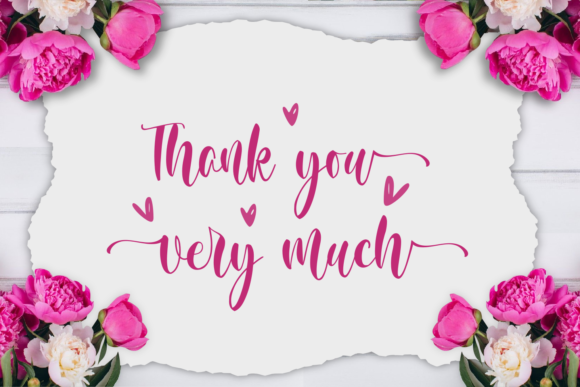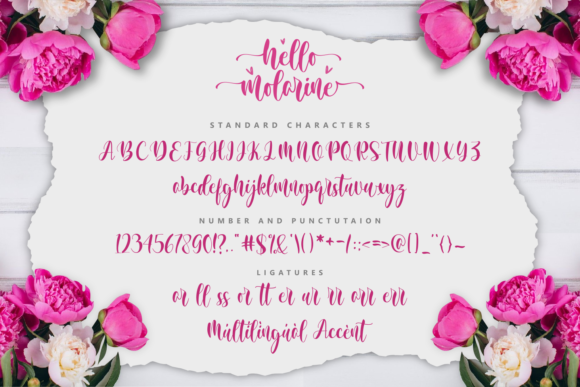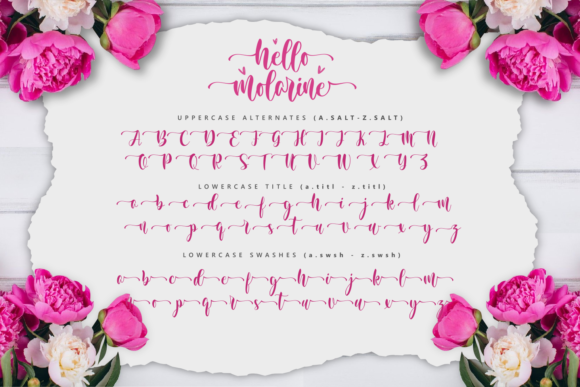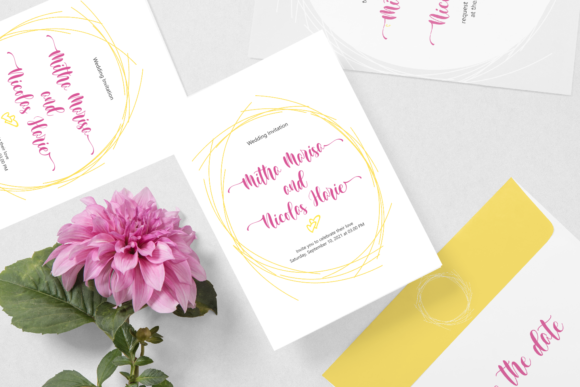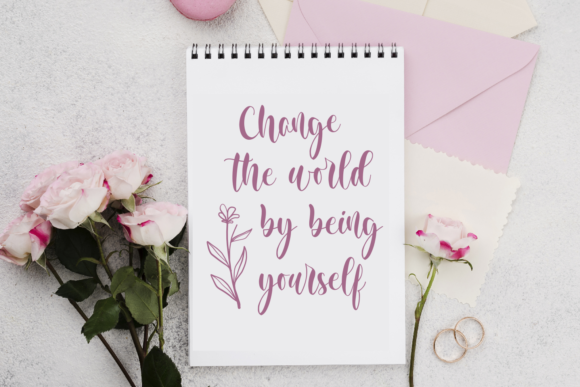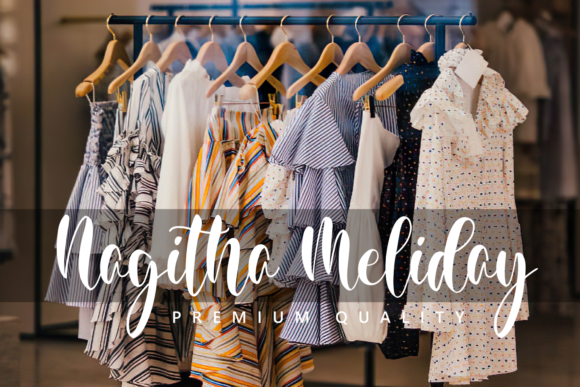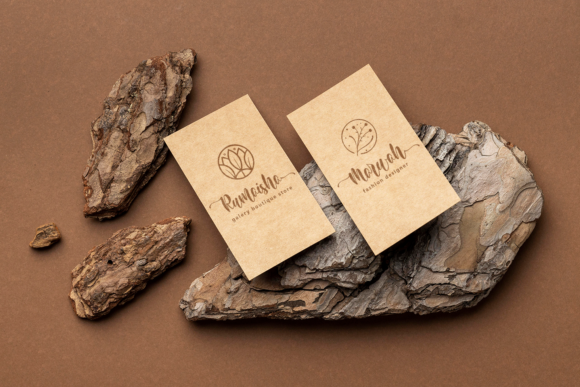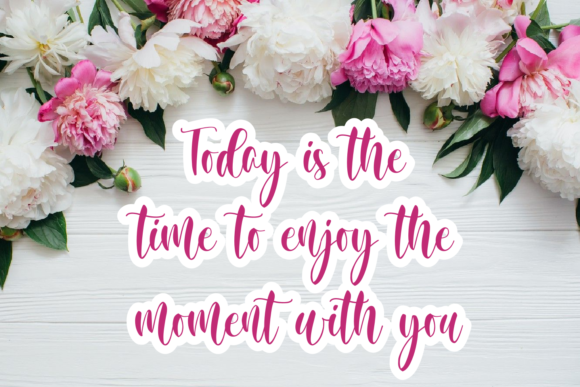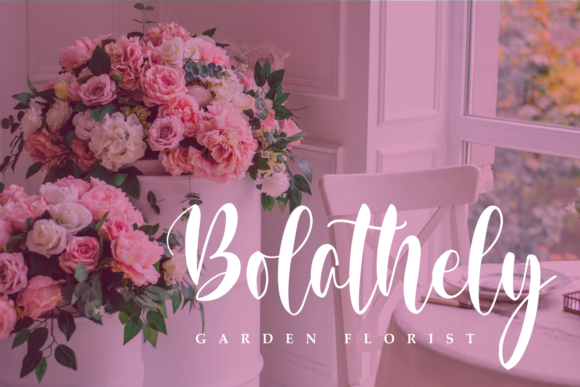
Hello Molarine Font Font
About Hello Molarine Font
Hello MolarineĀ is a lovely and delicate script font that exudes elegance and class. This font was particularly crafted for those who need a beautiful and refreshing look to their designs.